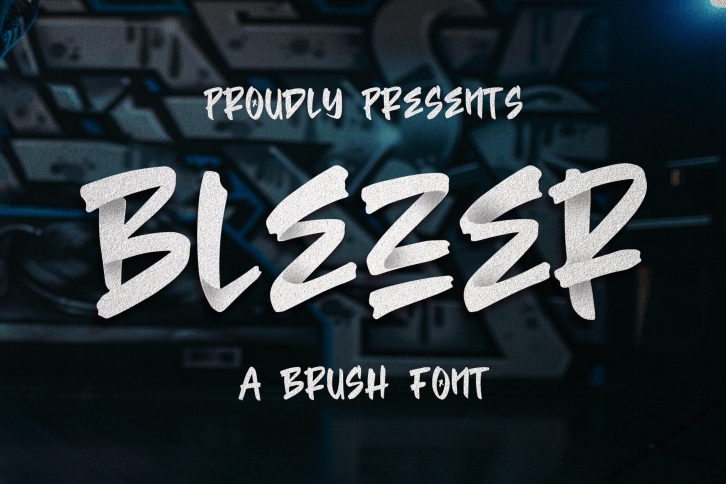
Blezer Brush Font Download
Introducing of our new product the name is Blezer Brush Font inspired by brush style with a fun theme very good for graffity poster, Hip Hop music, Apparel, etc
MULTILINGUAL ACCENT :
ØÆøæ¢ÐŒœÁĂÂÀÄĄÅÃǼĆČÇĈĊĎÉĔĚÊËĖÈĘĞĜĢĠĤÍĬÎÏİÌĮĨĴĶĹĽĻĿŃŇŅÑÓŎÔÖÒŐǾÕŔŘŖŚŠŞŜȘŤŢÚŬÛÜÙŰŲŮŨŴẄẀÝŶŸỲŹŽŻáăâäàąåãǽćčçĉċďéĕěêëėèęğĝģġĥíîïìįĩĵķĺľļŀńʼnňņñóŏôöòőǿõŕřŗśšşŝșťţ ŭûüűùųůũẃŵẅẁýŷÿỳźžż
FEATURES :
• Number
• Punctuation
• Multilingual
• PUA Encode
• Opentype